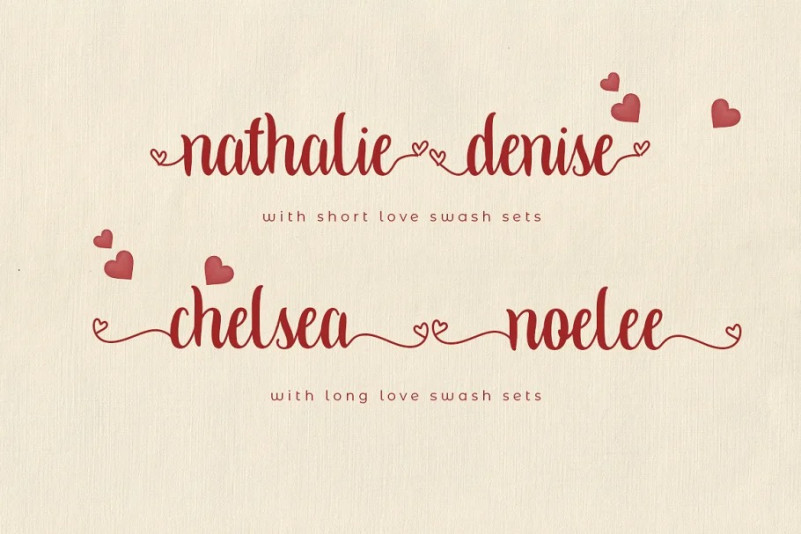
Kalisha Font
Kalisha Script Font was built 570+ glyphs, with OpenType features and includes many beginning and ending swashes, numbers, punctuation, and it also supports other languages.
You can toggle between both the regular and swashes font to get a handwritten, professional look.